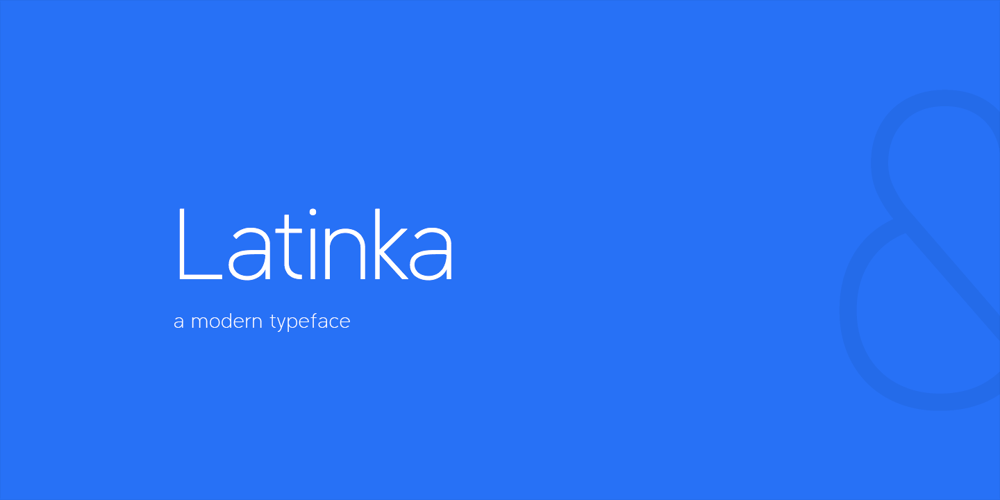
Latinka Font Family was designed by Jaroslav Zavodny and published by Jaroslav Zavodny. Latinka contains 18 styles and family package options. The Latinka family is a clean modern sans serif font created for website use as for desktop use. It is perfectly suited for graphic design and any display use. It comes with 18 different styles from thin to black. Each weight includes extended language support inclusive Cyrillic and Greek alphabet.